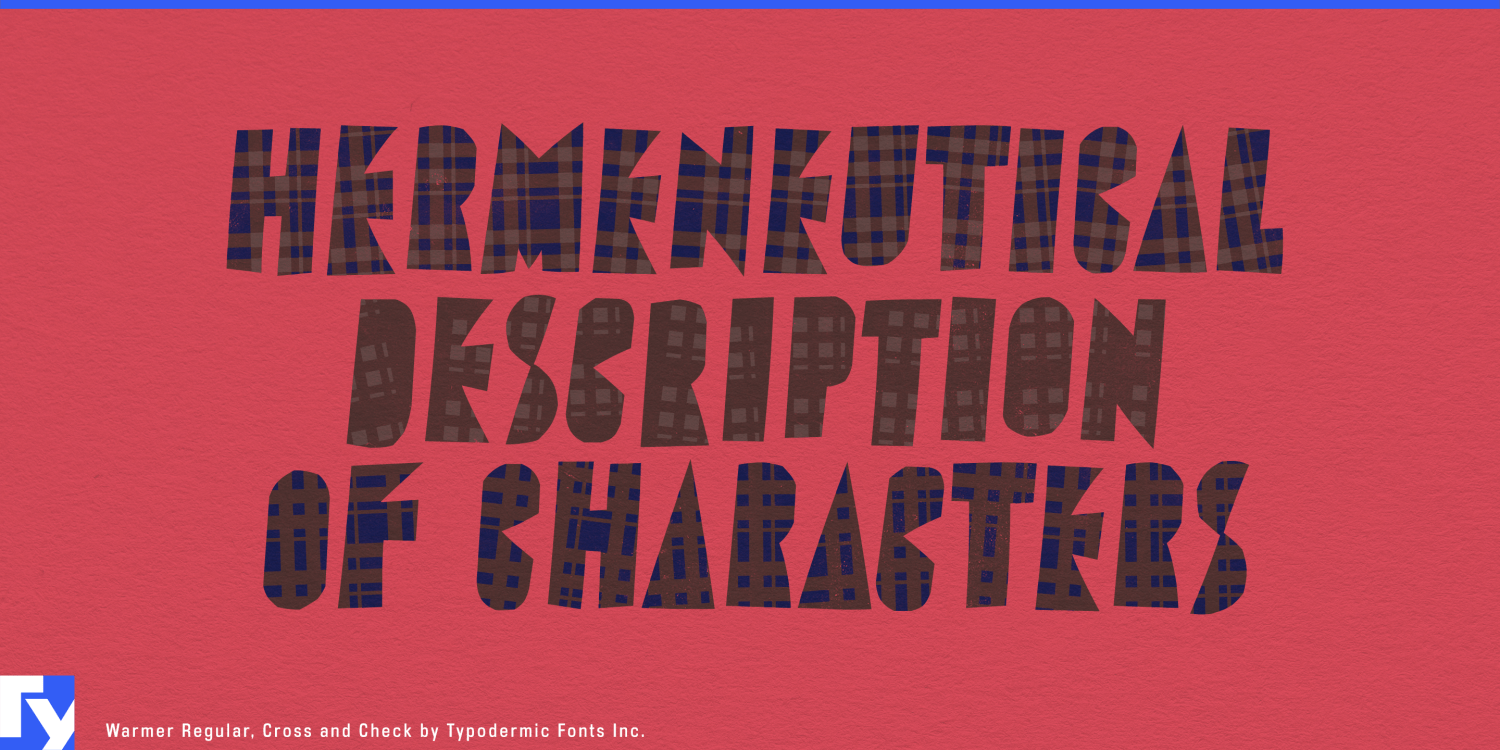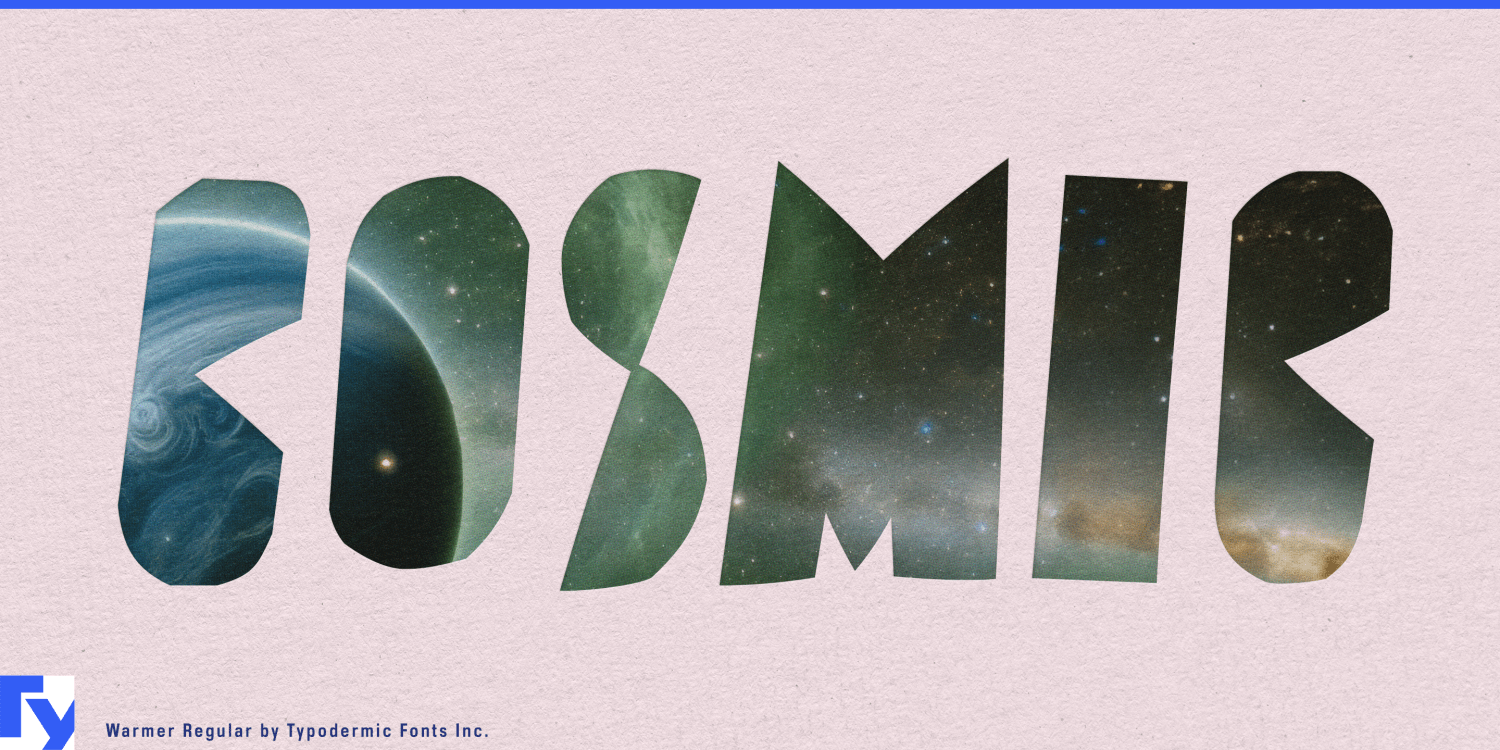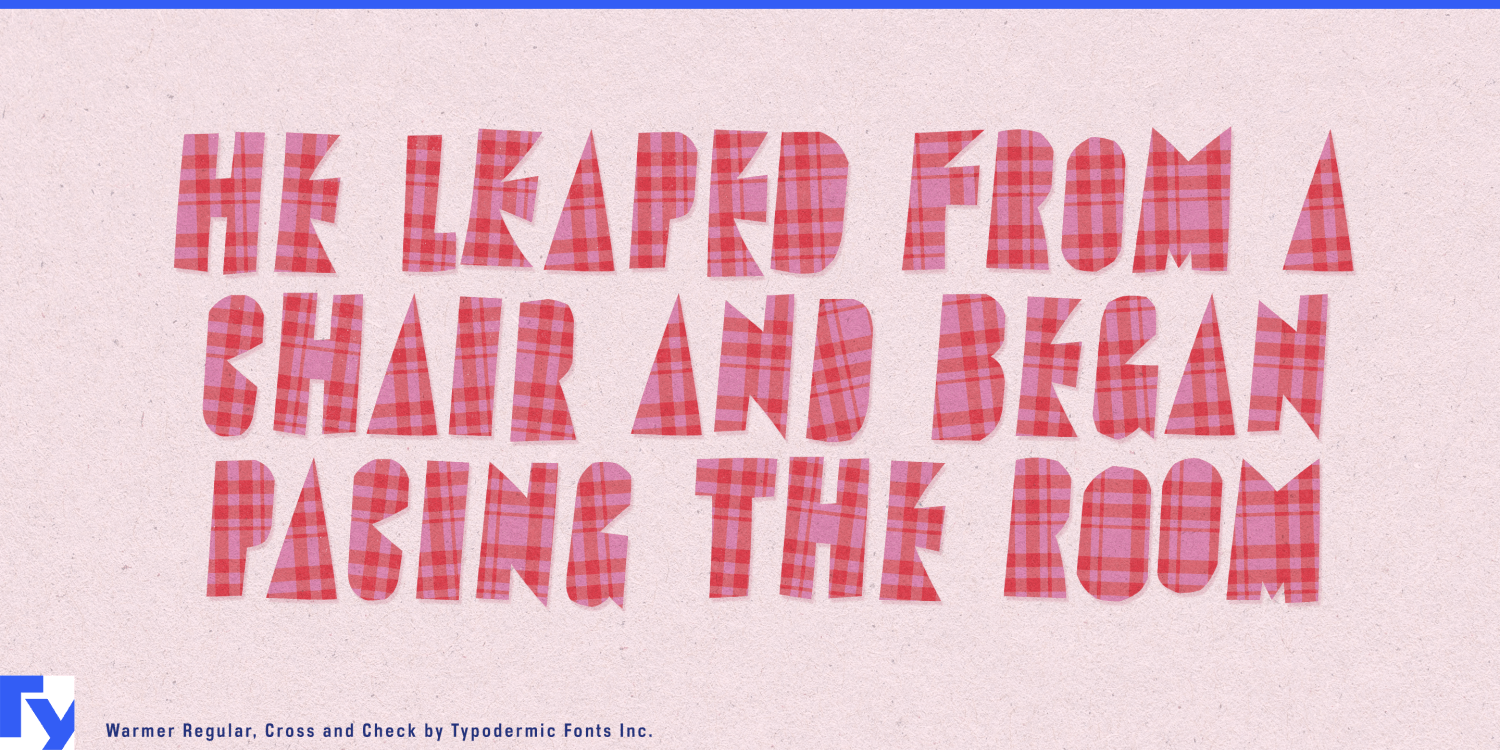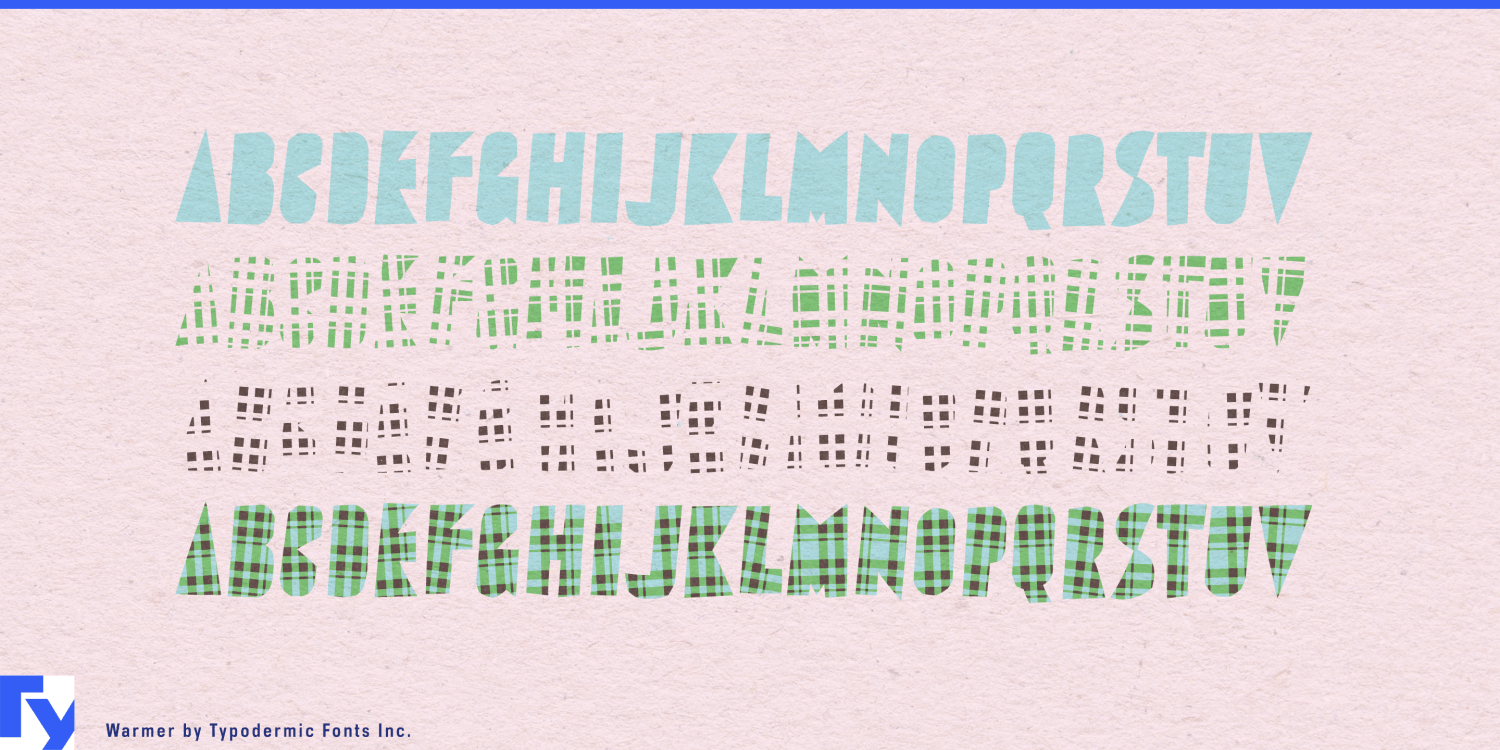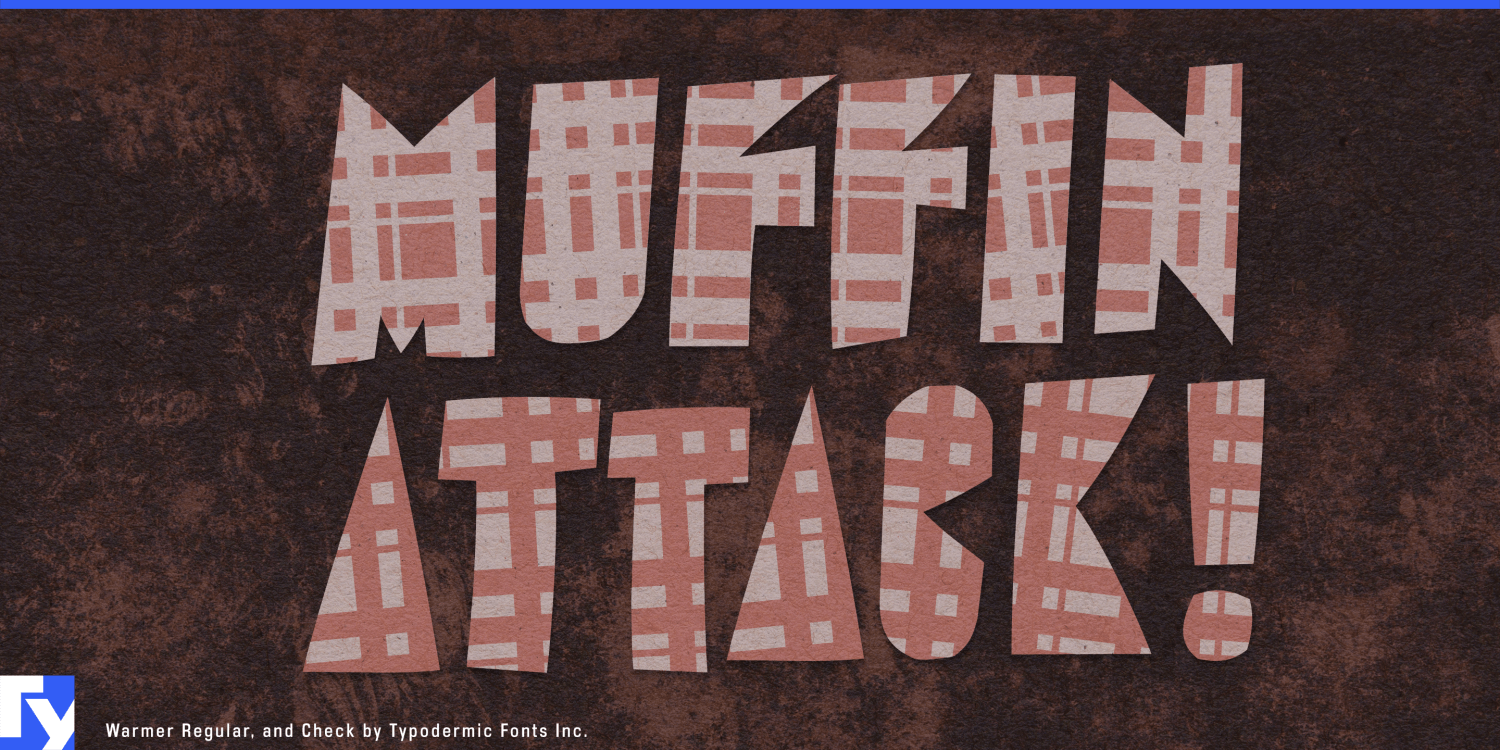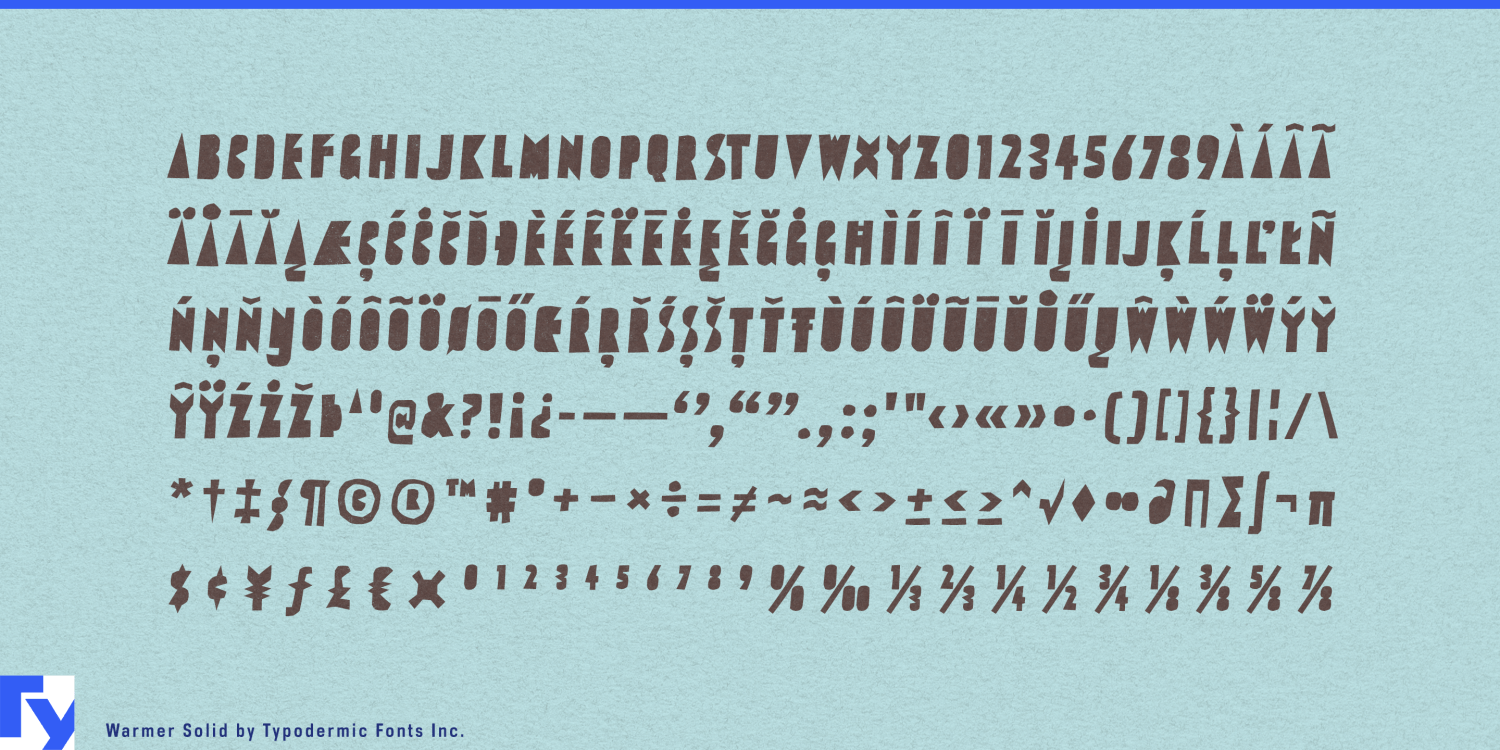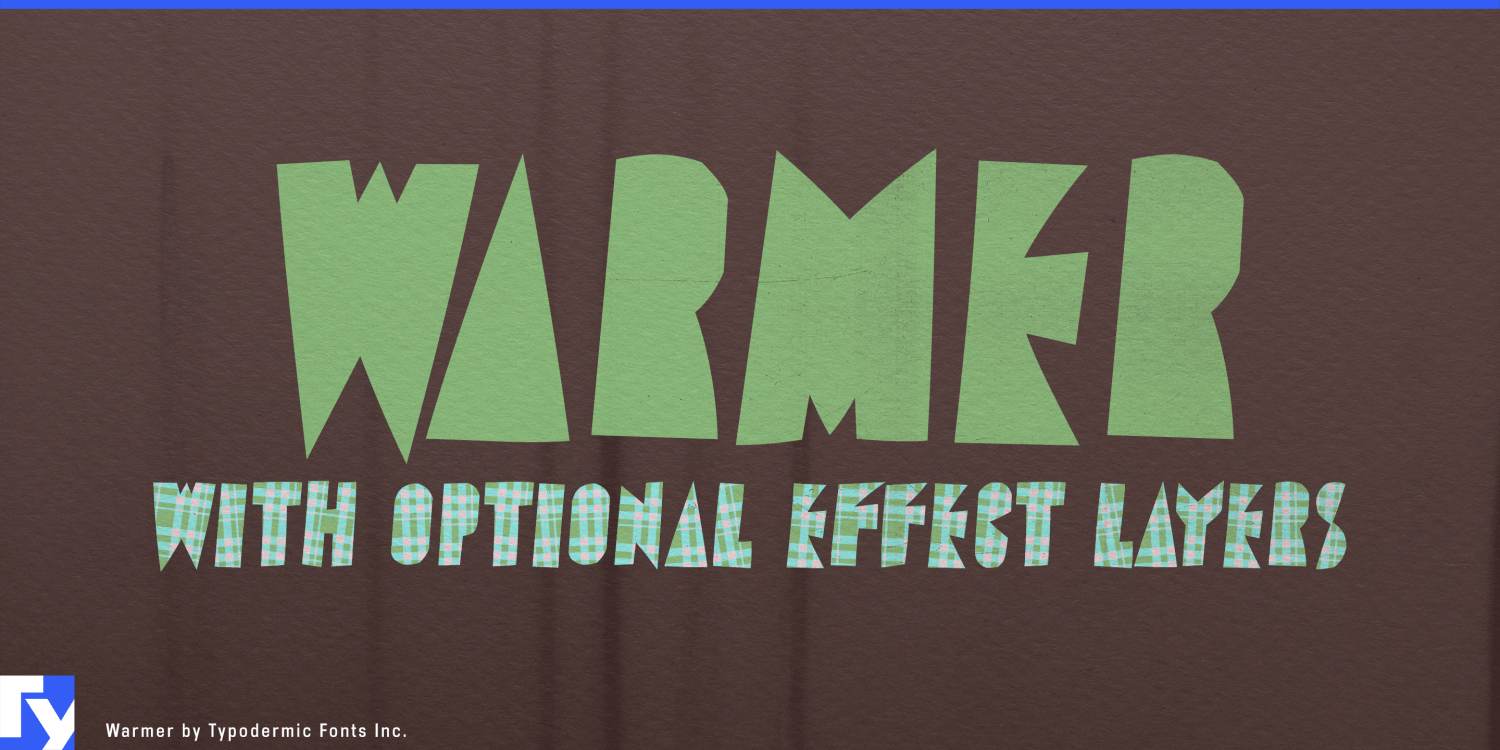
Wrap your designs in the comforting embrace of Warmer—a typeface that breathes life into digital spaces with the tactile charm of handcrafted textiles. This innovative creation doesn’t just display text; it weaves a visual tapestry that invites…